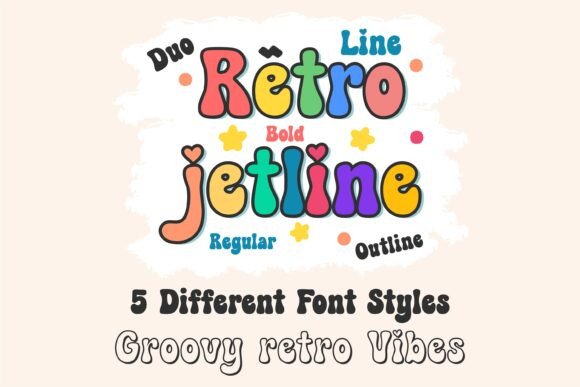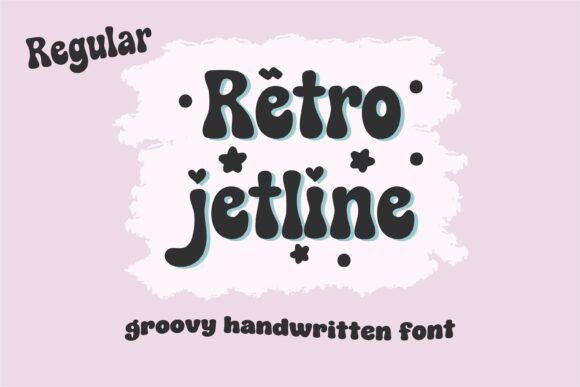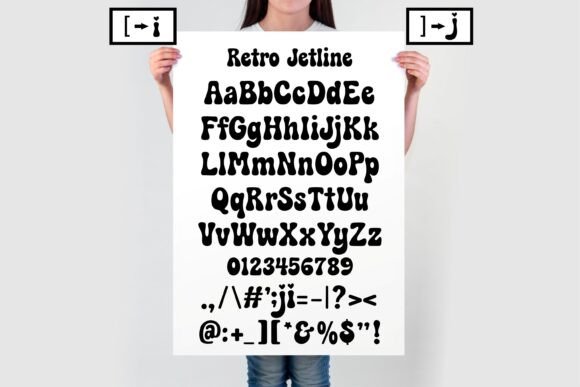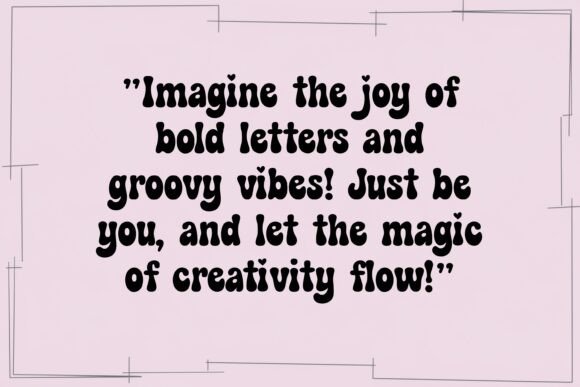
Retro Jetline Font: A Groovy, Playful Font for Cricut & Crafts!
About the Retro Jetline Font
Add a touch of class to your work with the Retro Jetline Font, a truly exceptional typeface. Retro Jetline is ideal for crafting, branding, and decorating your creative projects. This groovy font bundle includes five different styles: Regular, Bold, Duo, Line, and Outline, giving you endless creative possibilities. It’s perfect for wedding invitations, blog headers, and social media posts. With its retro charm, you can create stunning logos or beautiful decorative frames for your home. Whether you’re working on business branding, book covers, stationery, marketing materials, or magazine layouts, Retro Jetline’s bold and versatile styles will make your designs stand out with a nostalgic touch.
Retro Jetline Font Usage Examples
Retro Jetline Font Example